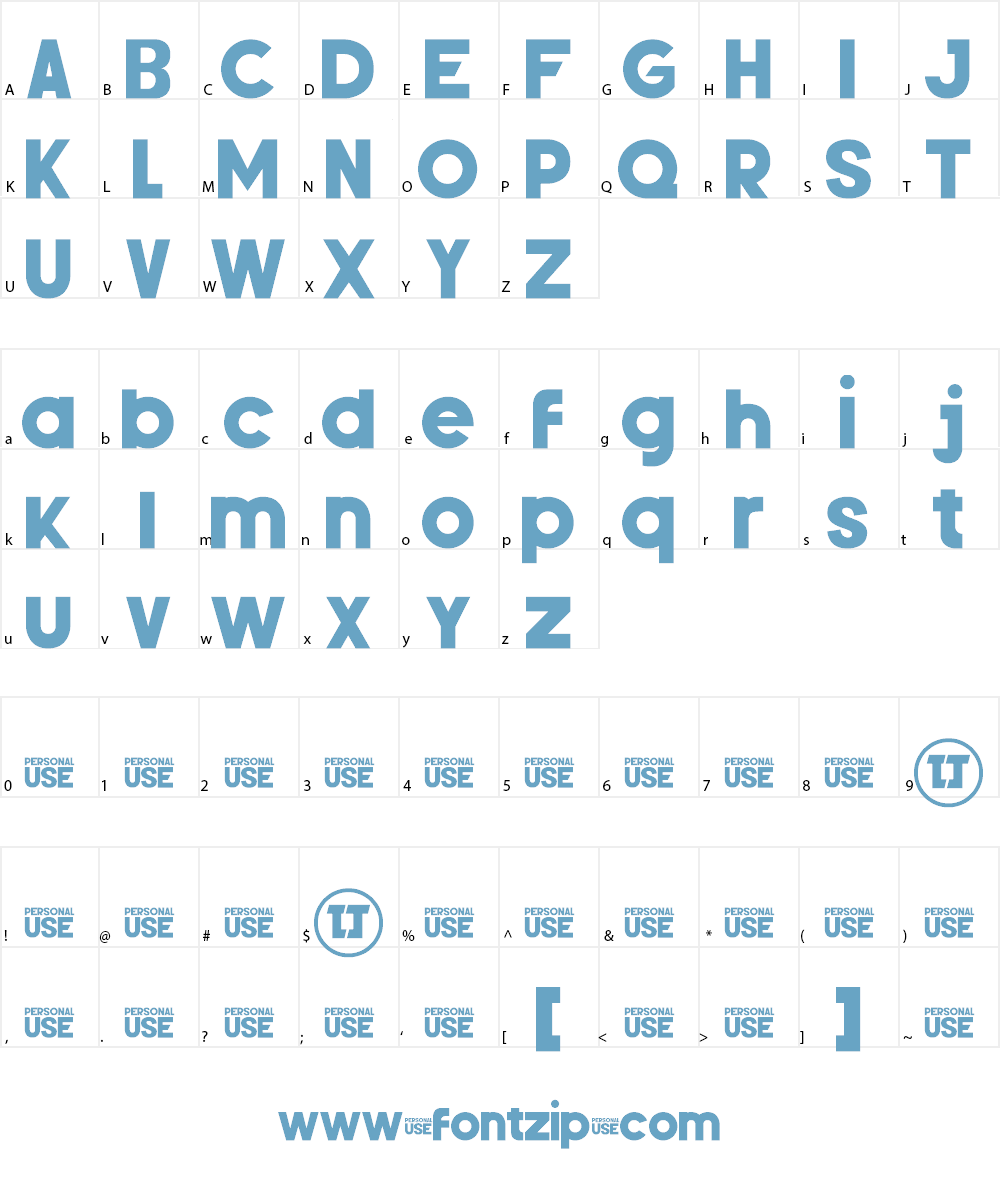
A variable of INIICO INICIO with a more personal style and specific purposes
Una variable de INIICO INICIO con un estilo más personal y propositos especificos